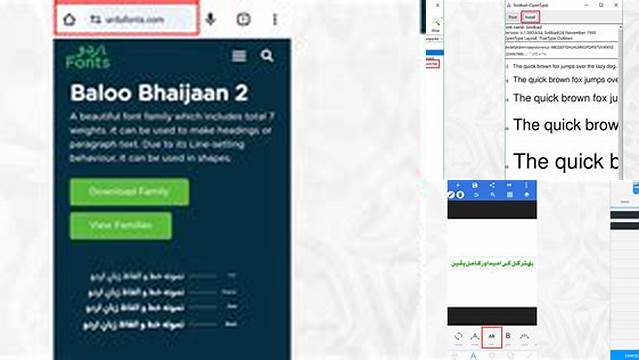
Urdu Fonts For PixelLab: Free Zip Download Guide
Hey guys! Are you looking to enhance your PixelLab creations with beautiful Urdu fonts? You've come to the right place! In this comprehensive guide, we'll dive deep into the world of Urdu fonts for PixelLab, providing you with everything you need to know about downloading, installing, and using them. We'll also address some common questions and concerns, ensuring you have a smooth and enjoyable experience. So, buckle up and let's get started on this creative journey!
Why Use Urdu Fonts in PixelLab?
Before we delve into the specifics of downloading and installing Urdu fonts, let's first understand why they are so crucial for certain projects. Urdu fonts add a unique cultural and artistic dimension to your designs, especially if you are creating content for an Urdu-speaking audience. Imagine crafting a beautiful Islamic calligraphy piece or designing a social media post for a Pakistani or Indian festival – using the right Urdu font can make all the difference. Urdu fonts aren't just about aesthetics; they're about connecting with your audience on a deeper level, conveying the nuances of language and culture with authenticity. When you choose the right Urdu font, your message resonates more powerfully, and your design gains a distinct identity. Furthermore, in a world saturated with generic fonts, using a well-crafted Urdu font can help your work stand out. It showcases your attention to detail and your respect for linguistic diversity. Whether you're designing posters, banners, social media graphics, or even YouTube thumbnails, incorporating Urdu fonts can elevate your work from ordinary to extraordinary. Plus, with the ease of importing fonts into PixelLab, there's really no reason not to explore the vast possibilities that Urdu fonts offer. So, if you're ready to take your designs to the next level, mastering the art of using Urdu fonts is a must. From elegant calligraphy to modern, bold styles, the world of Urdu fonts is rich and diverse, waiting for you to explore its treasures.
How to Use Urdu Fonts in PixelLab: A Practical Guide
Alright, you've got your Urdu fonts downloaded, extracted, and installed – now for the fun part! Let's talk about how to use Urdu fonts in PixelLab. PixelLab makes it super easy to incorporate custom fonts into your designs, so you'll be adding beautiful Urdu text to your creations in no time. First, open PixelLab and create a new project or open an existing one. To add text, tap the "A" icon at the bottom of the screen, then tap the "Text" icon. A new text box will appear on your canvas. Double-tap the text box to edit the text. Now, type in your desired Urdu text. If you don't have an Urdu keyboard installed on your device, you can download one from the Google Play Store or the App Store. Once you have an Urdu keyboard, you can easily type in Urdu. After you've typed your text, it's time to choose your Urdu font. Select the text box, and then scroll through the options at the bottom of the screen until you see the "Font" option. Tap on "Font," and a new window will open with a list of fonts. At the top of the window, you'll see tabs for "Fonts," "My Fonts," and "Recent." Tap on the "My Fonts" tab. This is where your custom fonts are stored, including the Urdu fonts you just installed. Scroll through the list of fonts until you find the Urdu font you want to use. Tap on the font to apply it to your text. If you don't see your font in the list, make sure you've installed it correctly on your device. You might need to restart PixelLab or even your device for the font to appear. Once you've selected your font, you can adjust the size, color, and other properties of the text using the options at the bottom of the screen. You can also add effects like shadows, strokes, and backgrounds to make your text stand out. Experiment with different fonts and styles to find the perfect look for your project. And remember, using Urdu fonts effectively is about more than just choosing a pretty font. It's about choosing a font that matches the tone and style of your design. So, have fun and get creative!
Tips for Choosing the Right Urdu Font for Your Project
Selecting the perfect Urdu font can significantly impact the effectiveness and aesthetic appeal of your design. It's not just about choosing a font that looks pretty; it's about finding one that aligns with your project's message, style, and target audience. Let's dive into some tips for choosing the right Urdu font to elevate your creative endeavors. First, consider the overall tone and style of your project. Are you designing a formal invitation, a casual social media post, or a traditional Islamic artwork? Different projects call for different fonts. For formal designs, elegant and classic Urdu fonts like Nastaliq or Naskh are often a great choice. These fonts have a timeless quality and convey a sense of sophistication and tradition. For more modern or informal designs, you might opt for a bolder, sans-serif Urdu font. These fonts have a clean, contemporary look and feel, making them ideal for posters, banners, and social media graphics. Think about the readability of the font. While some Urdu fonts might look beautiful, they might not be easy to read, especially at smaller sizes. Choose a font that is clear and legible, ensuring that your message is easily conveyed. Consider the context in which the font will be used. If you're designing for the web, you'll need to choose a font that is web-friendly and renders well on different browsers and devices. If you're designing for print, you'll need to choose a font that is high-quality and prints well at various sizes. When in doubt, it's always a good idea to experiment with different Urdu fonts and see how they look in your design. Try using different font sizes, weights, and styles to find the perfect combination. Don't be afraid to mix and match fonts, but do so sparingly and intentionally. Using too many fonts can make your design look cluttered and unprofessional. Ultimately, the best Urdu font is the one that best communicates your message and complements your overall design aesthetic. So, take your time, explore your options, and choose wisely!
Conclusion: Unleash Your Creativity with Urdu Fonts in PixelLab
So, guys, we've covered a lot in this guide! You now have a solid understanding of where to find Urdu fonts, how to download and install them, and how to use them effectively in PixelLab. You've also learned how to troubleshoot common issues and choose the right font for your project. Unleashing your creativity with Urdu fonts in PixelLab opens up a world of design possibilities, allowing you to create visually stunning and culturally relevant content. Whether you're designing Islamic art, Urdu poetry posters, or social media graphics for your Urdu-speaking audience, the right Urdu font can make all the difference. Remember, Urdu fonts are more than just decorative elements; they're a powerful tool for communication and expression. They can add depth, meaning, and authenticity to your designs, helping you connect with your audience on a deeper level. By mastering the art of using Urdu fonts, you're not just improving your design skills; you're also celebrating a rich and beautiful linguistic tradition. So, go ahead and experiment with different fonts, styles, and techniques. Don't be afraid to push the boundaries and explore new creative horizons. With the knowledge and tools you've gained from this guide, you're well-equipped to create amazing designs using Urdu fonts in PixelLab. Now it's time to put your newfound skills into practice and let your creativity shine! Happy designing!